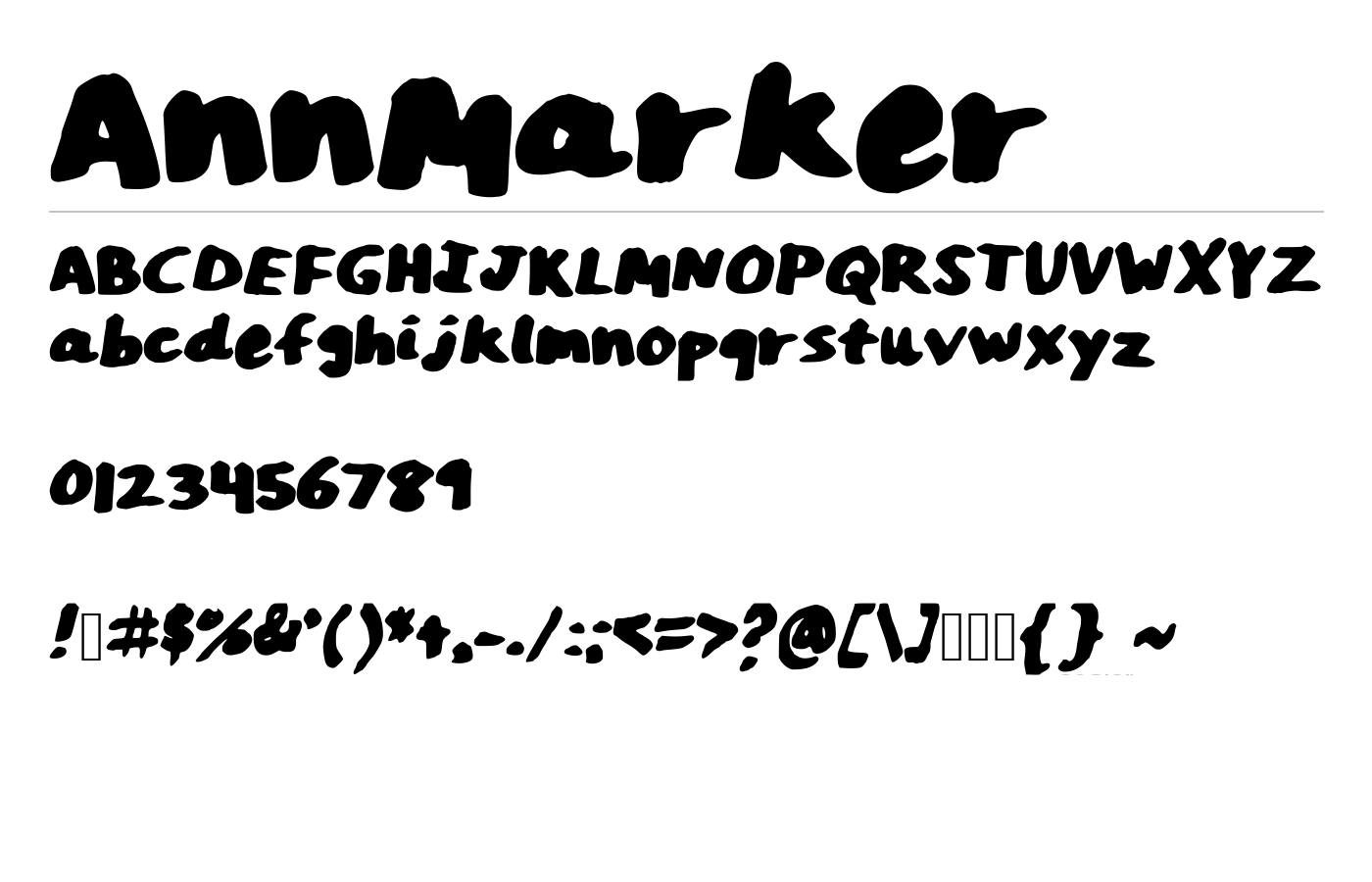
AnnMarker is a bold, casual handwritten sans serif font with a playful and organic feel. Its rounded, irregular strokes and slightly chunky letterforms give it an approachable, friendly personality, making it ideal for creative projects, informal branding, and fun headlines that need a human touch. This font works best in contexts where a personal, energetic vibe is desired, such as greeting cards, posters, or children’s content.
AnnMarker Font
About AnnMarker Font